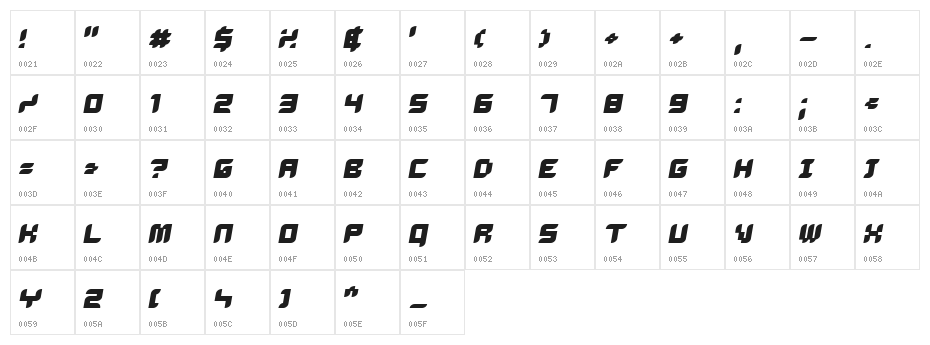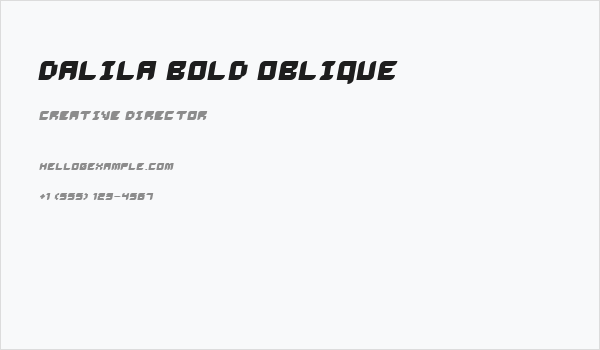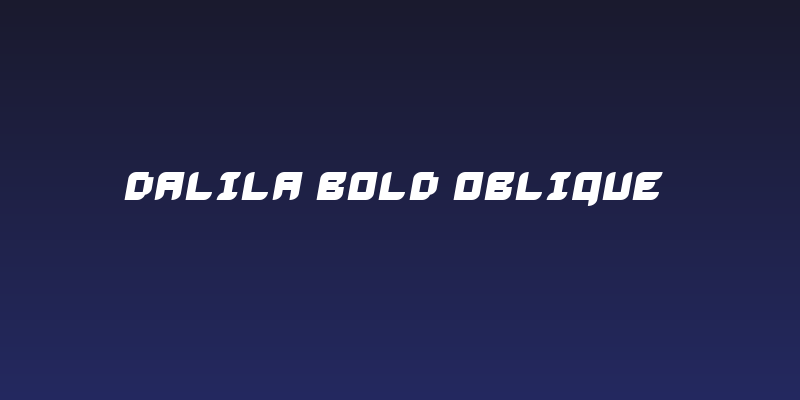
Dalila Bold Oblique Font
Dalila Bold Oblique Description
This font features a bold and oblique style, characterized by its strong and dynamic appearance. The letters are slightly slanted, giving a sense of motion and energy. The strokes are thick and consistent, providing a robust and impactful look. The design is modern with a touch of futuristic flair, making it suitable for attention-grabbing headlines and logos. The characters are well-spaced, ensuring readability while maintaining a compact feel. The overall aesthetic is sleek and contemporary, ideal for projects that require a bold statement.
| Proposed Projects | Ideal for sports branding, tech company logos, dynamic posters, and modern advertising campaigns. |